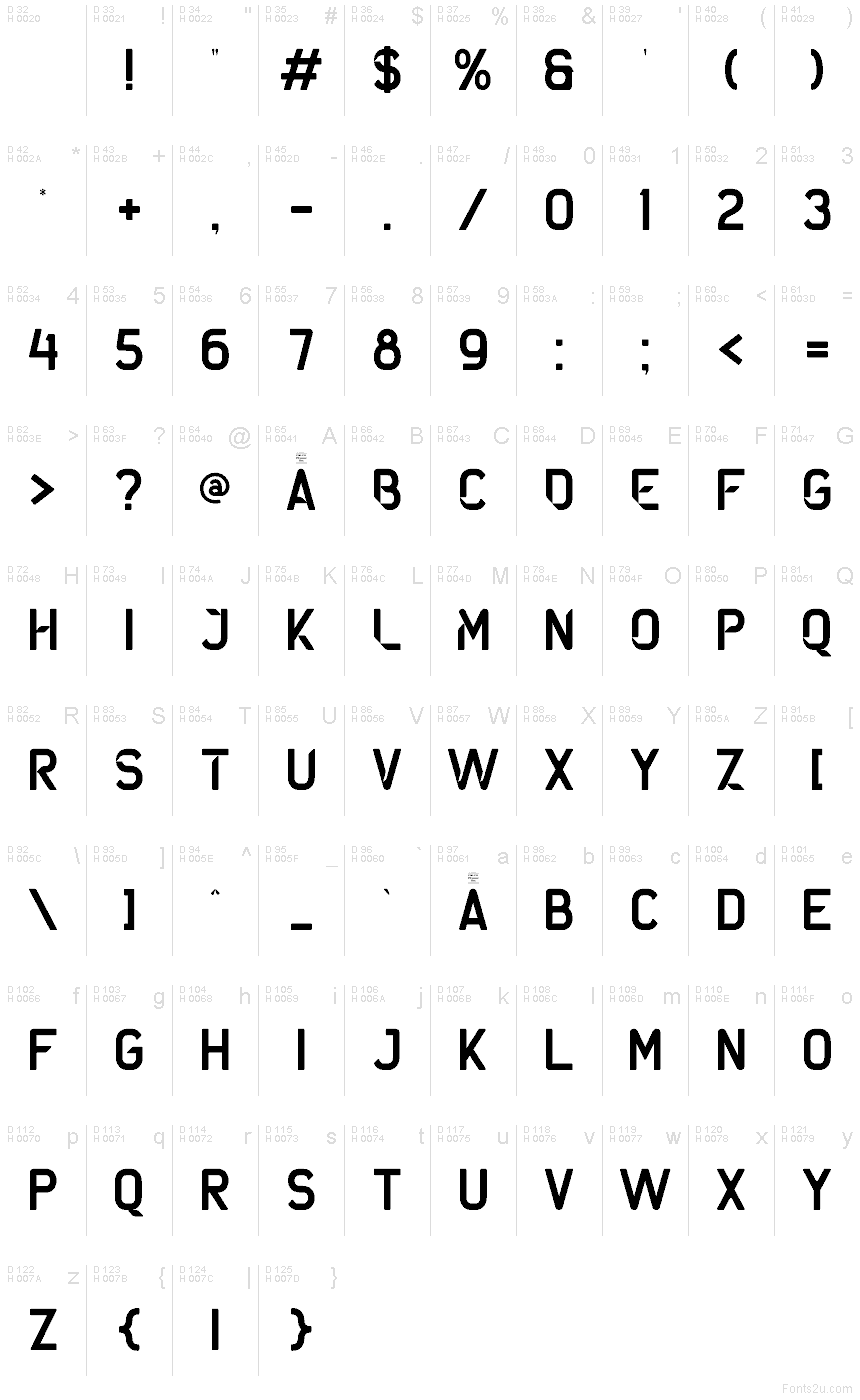
Glaxchio
Glaxchio font by Ermedia Studio is a free modern sans serif font. Its defining move is the pill-shaped geometry—rounded corners meeting squared curves—so headlines feel engineered yet friendly. The strokes are even and sturdy, giving a clean, synthesized rhythm that reads crisp at large sizes and holds together in tight layouts without feeling cramped.
This free font shines on tech branding, esports logos, sci‑fi book covers, gadget packaging, app splash screens, and poster headlines. Using Glaxchio brings a cool, machined presence that’s easy to systemize across a campaign. Try generous tracking for ultra-modern airiness, and pair it with a neutral grotesk for body copy to keep the message sharp and readable.